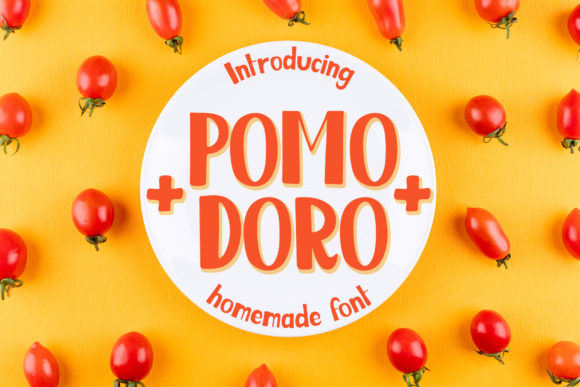
Introducing Pomodoro Font: The Bold and Beautiful Display Font That Will Make Your Designs Pop!
In a world of digital noise, it's your bold headlines that cut through the clutter and capture attention. But with so many fonts to choose from, how do you find one that's both eye-catching and easy to read?
Look no further than Pomodoro, the display font that combines a modern aesthetic with a timeless appeal. Its clean lines and playful curves create a visual harmony that draws the eye and keeps it engaged.
Whether you're a seasoned designer or just starting out, Pomodoro is a must-have font for your creative arsenal. Its versatility shines in various contexts, from busy backgrounds to standalone headlines. It's the perfect choice for:
- Websites: Create unforgettable headlines and subheadings that command attention and leave a lasting impression.
- Logos and Branding: Make your brand stand out with a custom logo featuring the distinctive Pomodoro font. Its bold and playful style is ideal for businesses looking to project a fun and approachable image.
- Social Media Graphics: Capture the attention of your social media followers with visually stunning graphics that feature Pomodoro's captivating curves. Your posts will stand out in their feeds, ensuring your message is seen and heard.
- Print Materials: From brochures and flyers to posters and billboards, Pomodoro adds a touch of sophistication and elegance to any printed material. Its clean and legible design ensures your message is clear and impactful.
Pomodoro is more than just a font; it's a creative tool that empowers you to express your unique style and personality. Its bold and playful design is guaranteed to turn heads and leave a lasting impression on your audience.